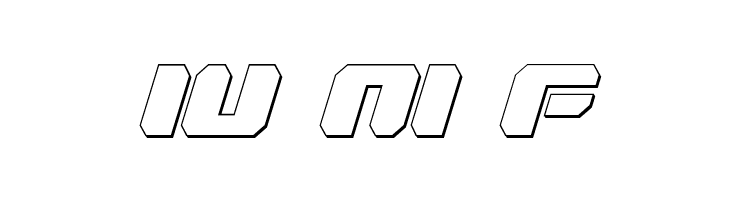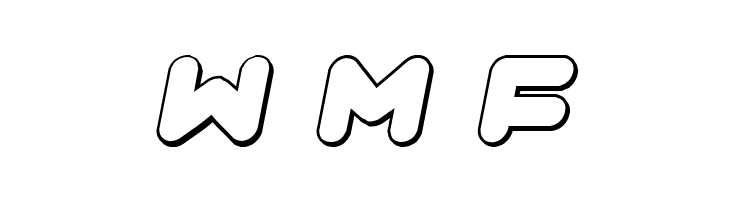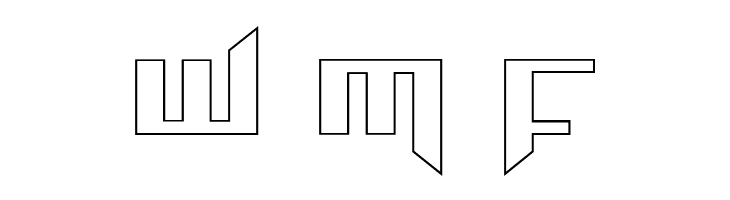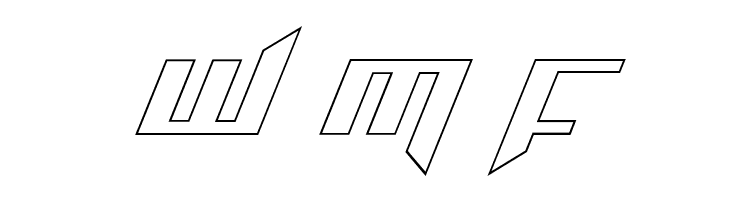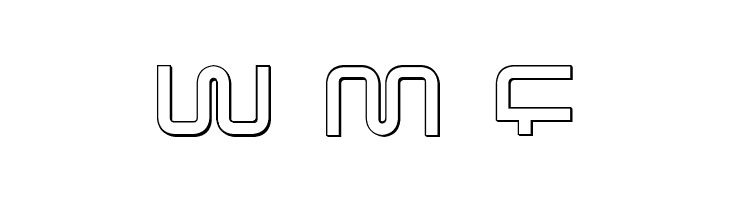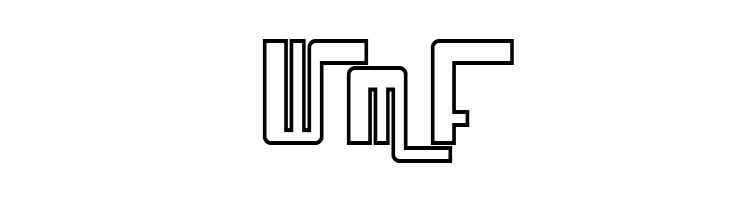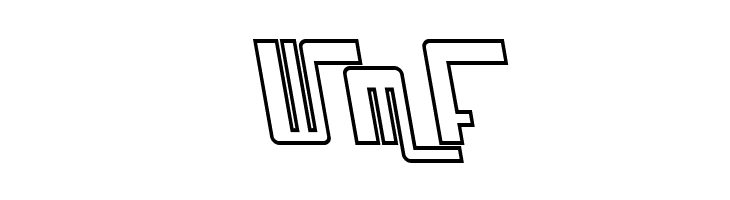
A bold, decorative font with a crosshatched pattern and graffiti-like style.
A playful, bold font with exaggerated curves and angles, perfect for dynamic designs.
An outline serif font with a modern and artistic style.
A dynamic, italic outline font with bold, playful characters.
A playful, hand-drawn outline font with a bold and friendly appearance.
A bold, hand-drawn font with a playful, sketch-like appearance.
A bold, geometric outline font with a modern and playful style.
A playful, bold outline font with rounded edges and a bubble-like appearance.
A playful, outline-style font with bold, rounded characters.
A clean, modern sans-serif font with uniform, geometric letterforms.
A playful, outlined font with a hand-drawn, whimsical style.
A playful, outlined font with bold, rounded characters and a whimsical style.
A playful, outlined font with rounded, bold characters and a whimsical style.
A playful, hand-drawn outline font with whimsical elements and a casual style.
A playful, outlined font with a hand-drawn, whimsical style.
A playful, outlined font with rounded, whimsical characters.
Decorative outlined blackletter font with sharp, angular strokes.
A bold, geometric outline font with a modern, futuristic aesthetic.
A bold, outlined font with a medieval and gothic style, featuring intricate and decorative characters.
A futuristic, geometric outlined font with bold, rounded lines.
A futuristic, outlined font with geometric and symmetrical design.
A modern, outlined font with bold, geometric characters.
A bold, outlined geometric font with a retro-modern aesthetic.
A playful, outlined font with rounded, slanted characters for a lively look.
A playful, bold outline font with rounded, dynamic letterforms.